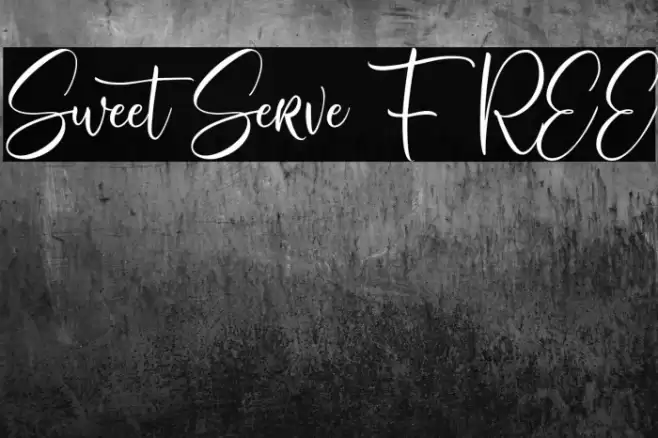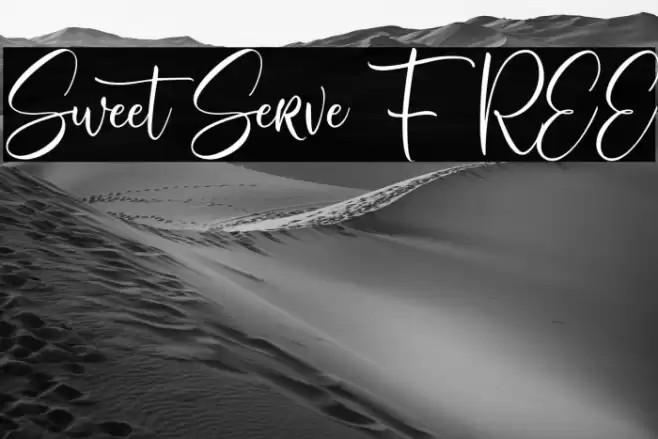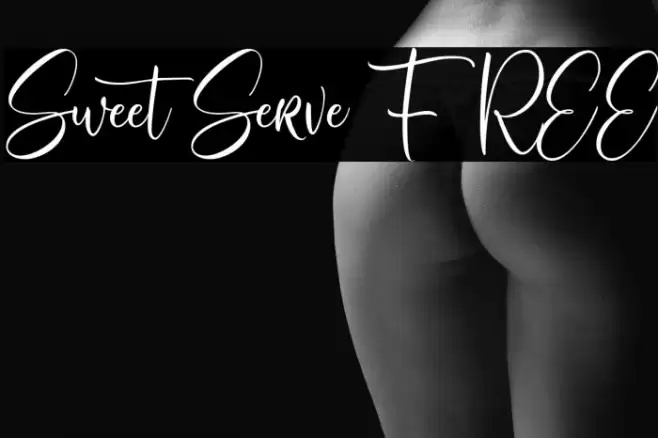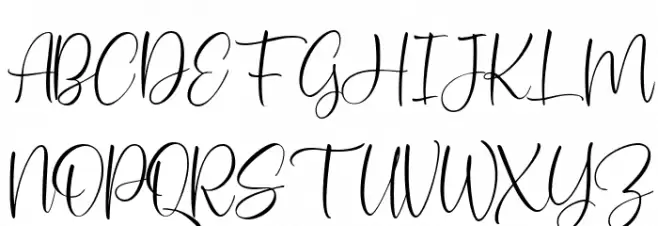
SweetServe FREE Font
SweetServe FREE Description
This elegant script font features a flowing, handwritten style with a modern twist. The uppercase letters are tall and slender, with graceful loops and curves that give a sense of movement and fluidity. The lowercase letters are more compact, maintaining the same fluidity with a slightly more playful touch. The font includes a full set of uppercase and lowercase letters, numbers, and a selection of special characters. Its delicate strokes and high contrast between thick and thin lines create a sophisticated and stylish appearance, making it ideal for projects that require a touch of elegance and personality.
A modern, elegant script font with flowing, handwritten style and high contrast from Regular fonts.
- Proposed Projects: Ideal for wedding invitations, greeting cards, branding, and logo design where elegance and a personal touch are desired.
- Overall Style: Modern, Elegant
- Use Case: Logos, Invitations, Branding